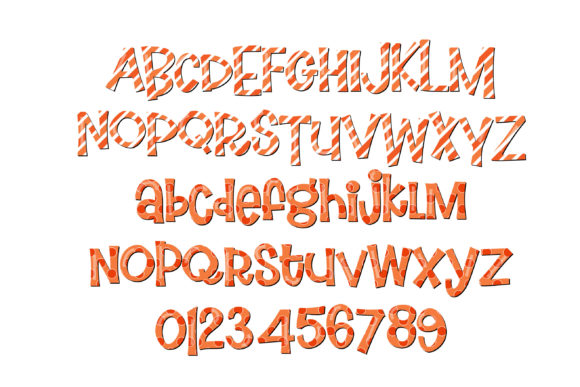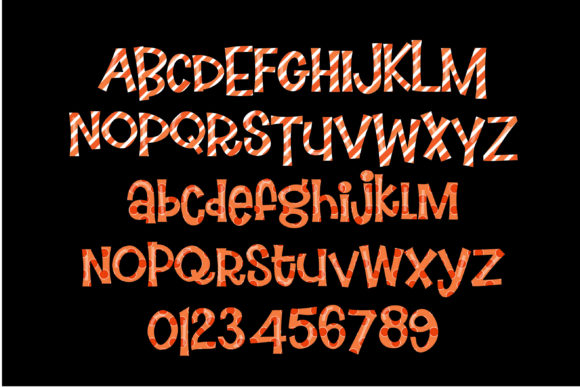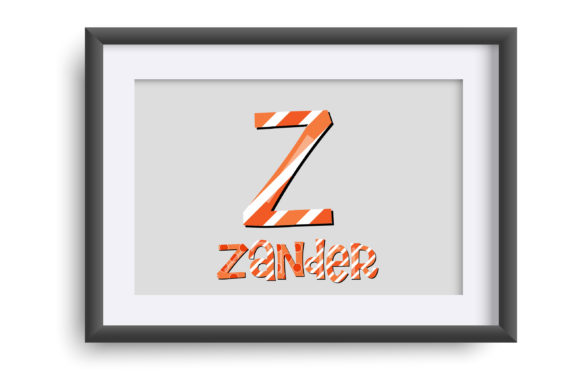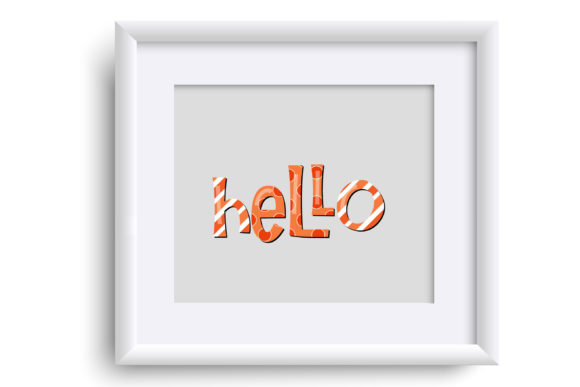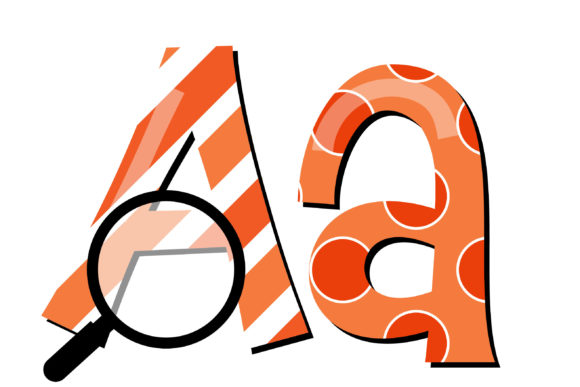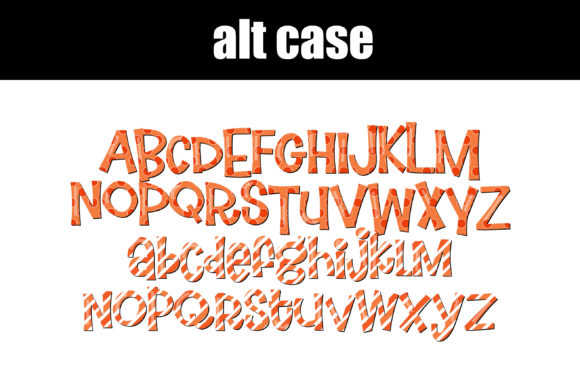
Jolly Oranges Font
The whimsical full-color font with an orange color palette is a playful and vibrant choice for your designs. The font features charming and unique lettering that adds a touch of whimsy to your projects.
One of the fun features of this font is the inclusion of ligatures, such as the double “l’s” ligature, which adds a creative twist to the letterforms. Ligatures are special characters that combine two or more letters into a single, stylized glyph.
To further enhance your design options, the font also includes a second set of upper and lower case characters. You can access these alternate characters through your system’s character map or character panel, allowing you to customize your text and create even more visually appealing compositions.
With the whimsical font in an orange color palette, you can infuse your designs with a playful and vibrant energy. This font is particularly suitable for projects that require a touch of creativity and a lighthearted aesthetic. Whether you’re designing posters, invitations, children’s books, or any other project that calls for a whimsical feel, this font will help you bring your ideas to life.
Embrace the orange color palette and explore the delightful ligatures and alternate characters to create unique and eye-catching compositions. Let your creativity flow and enjoy the versatility that this full-color font offers.